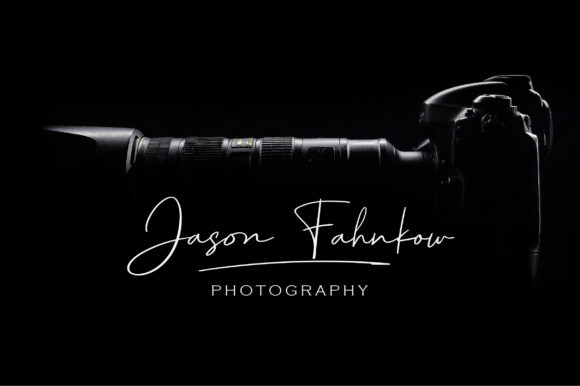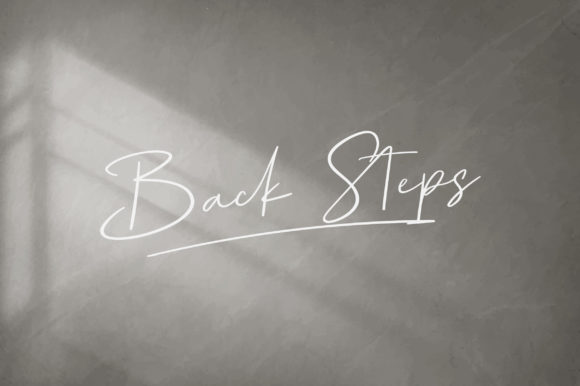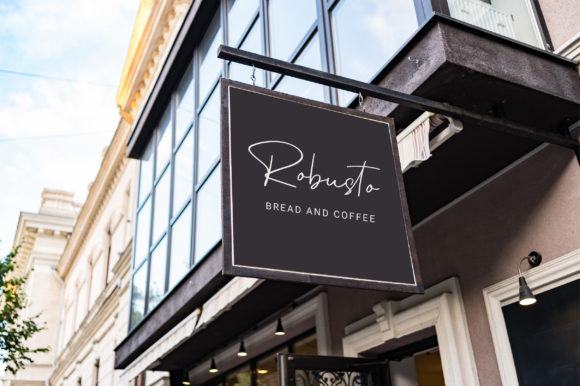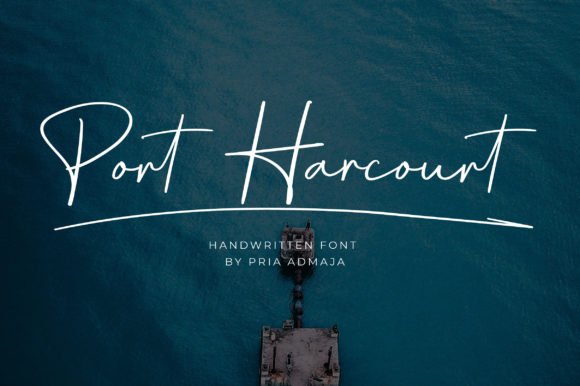
Port Harcourt is a stylish and incredibly elegant handwritten font.
Port Harcourt Font offers exceptional quality and versatility, making it a valuable addition to your design toolkit. Whether you’re creating for personal projects or commercial use, Port Harcourt Font delivers professional results.